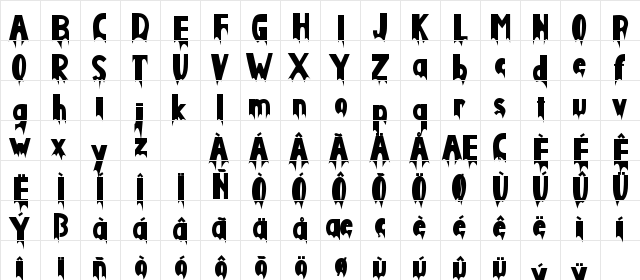
Monster Phantom Regular Free Font
Monster Phantom Regular
Designer: Yoga Letter 2024 (Isroni Yoga Prasetya)
Design Context for Monster Phantom
Monster Phantom is a composed and adaptable typeface that performs quietly and consistently across a wide range of design contexts.